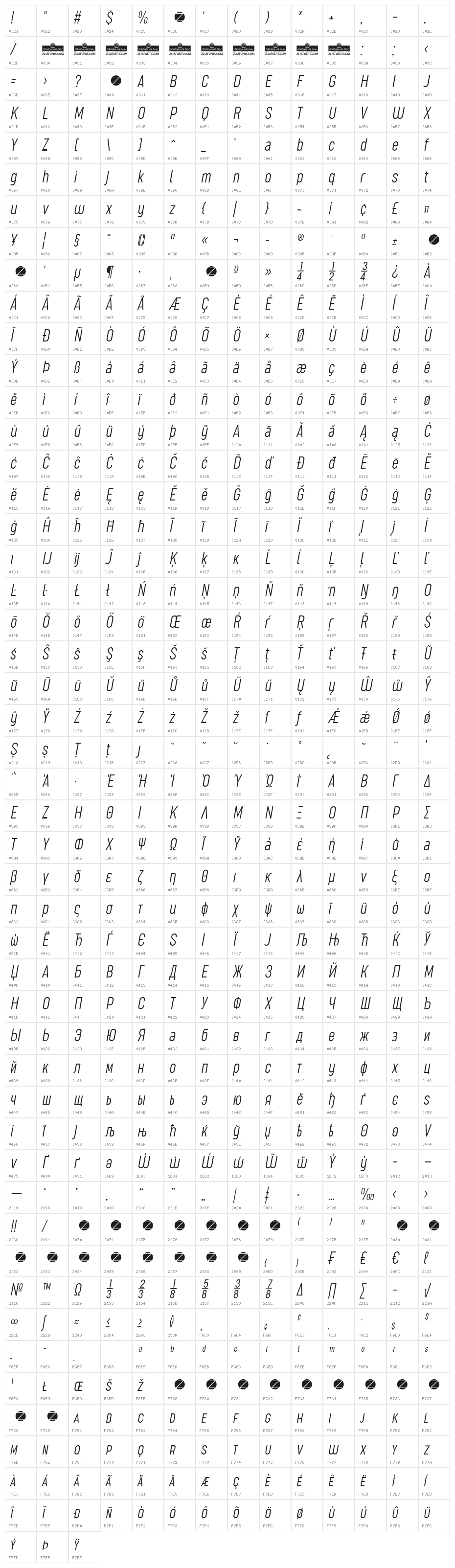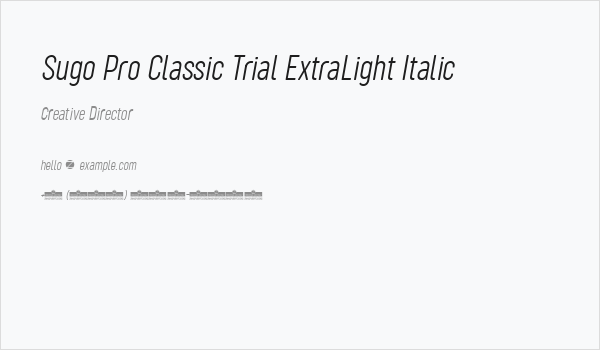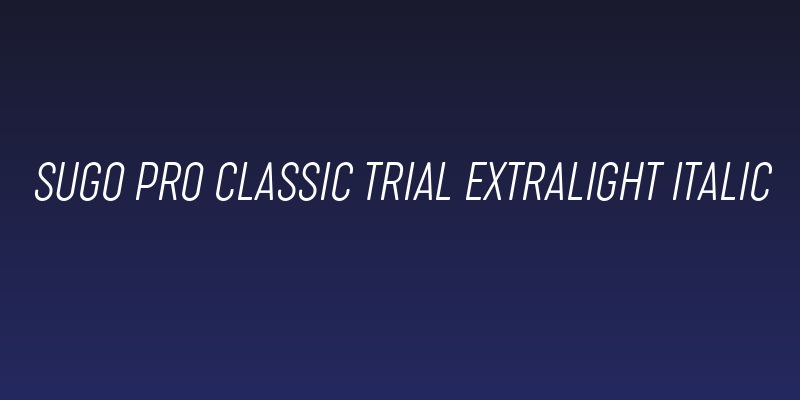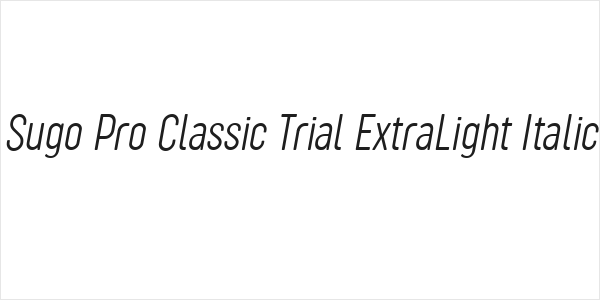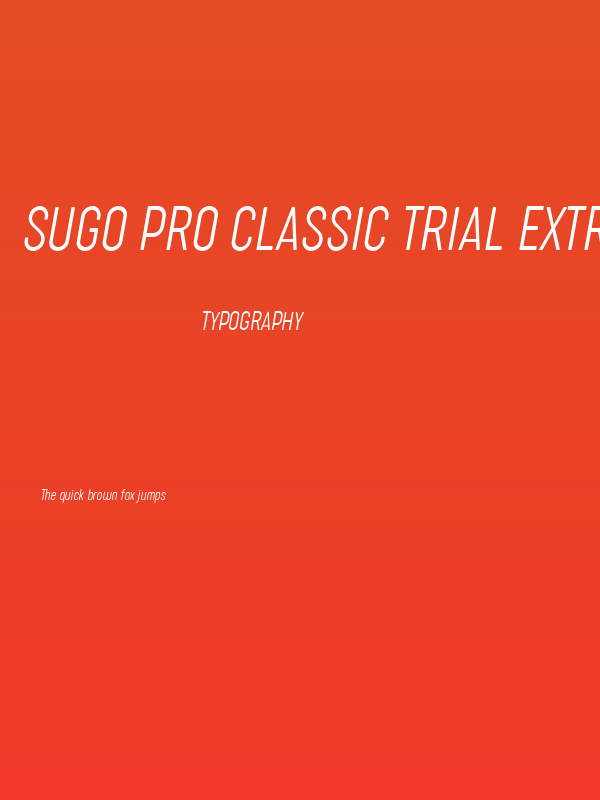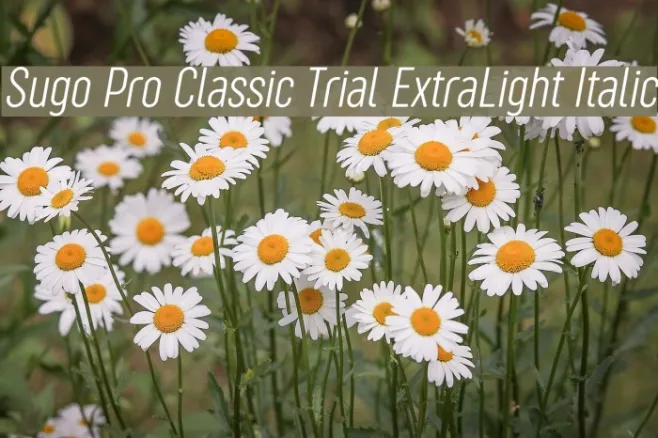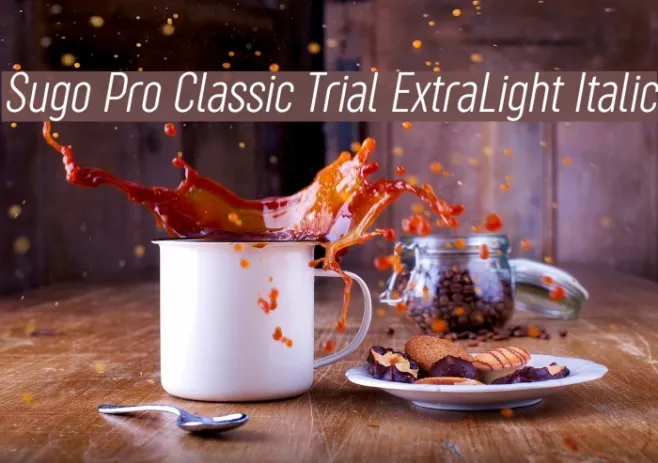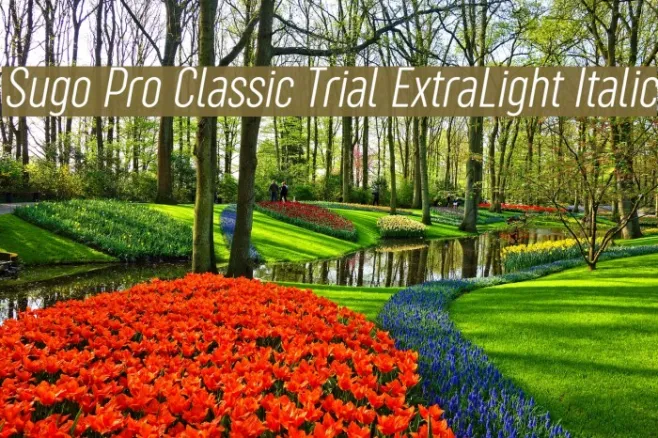
Sugo Pro Classic Trial ExtraLight Italic Font
Sugo Pro Classic Trial ExtraLight Italic Description
This font features a sleek and modern design with a subtle italic slant, giving it a dynamic and elegant appearance. The characters are elongated with a consistent stroke width, contributing to its extra light weight. The font maintains a clean and minimalistic aesthetic, making it suitable for contemporary design projects. The uppercase and lowercase letters are well-proportioned, and the numerals are clear and legible. Special characters are included, adding versatility to its use. The overall style is refined, with a focus on simplicity and readability.
| Use Case | Headlines, Body text, Logos |
| Proposed Projects | Ideal for modern branding, editorial design, fashion magazines, and minimalist websites. |